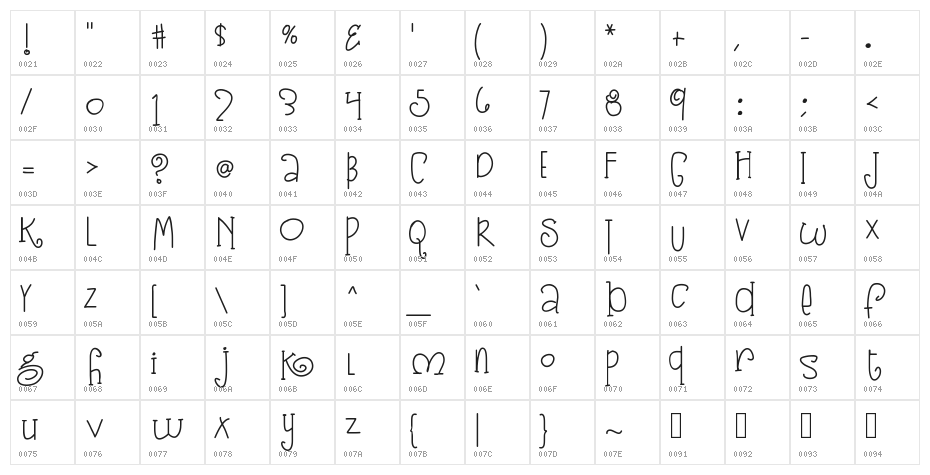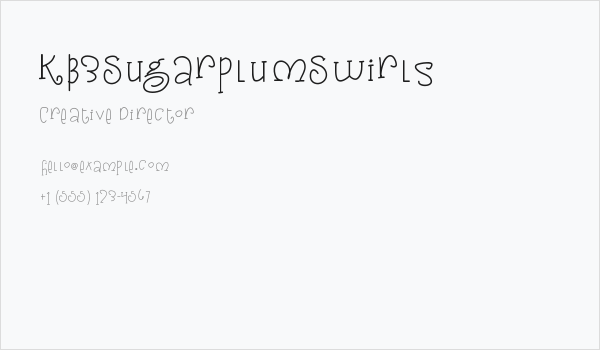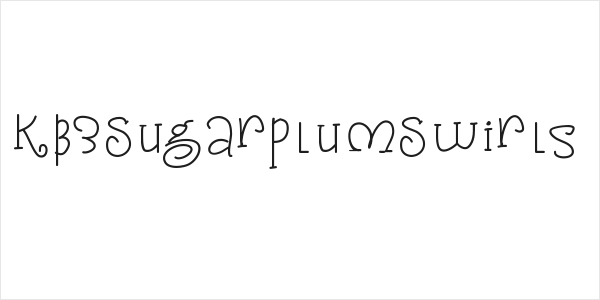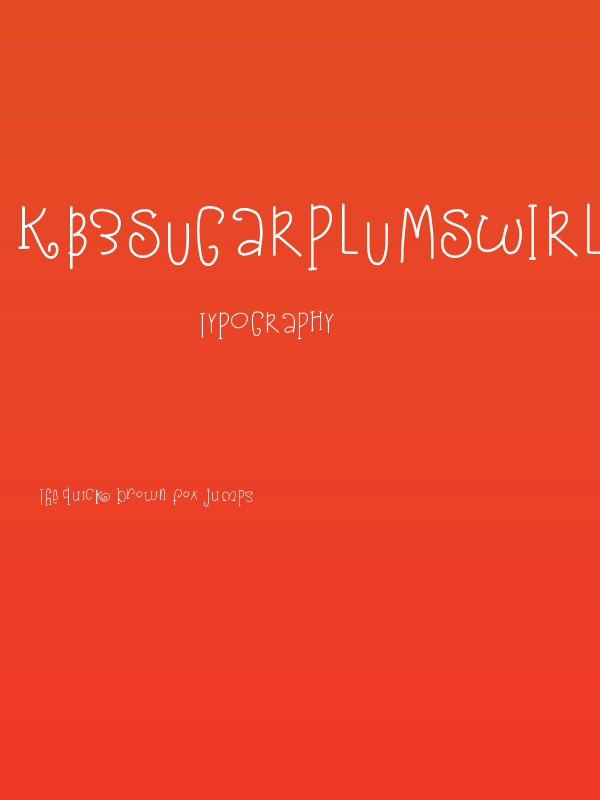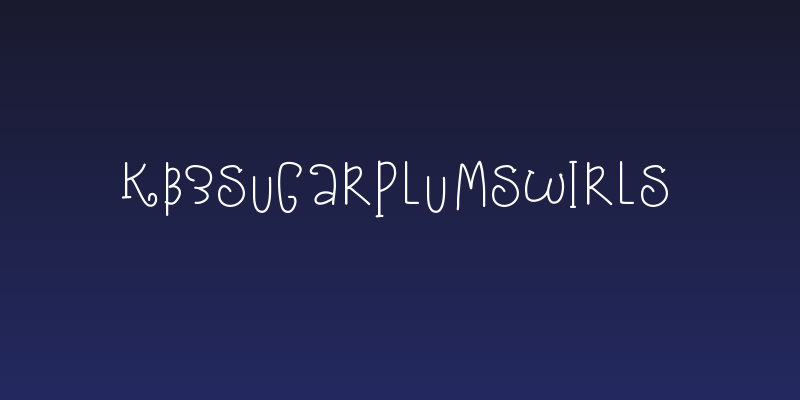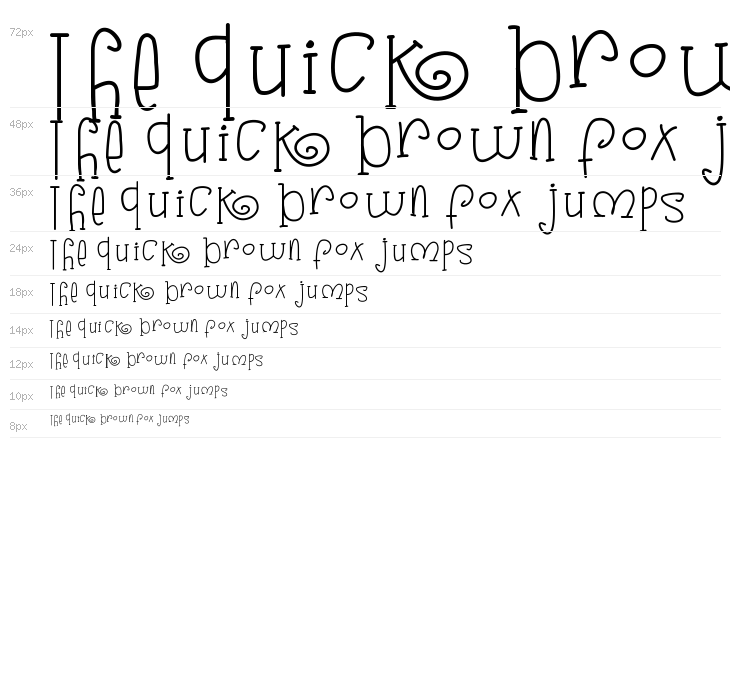
KB3SugarplumSwirls Font
KB3SugarplumSwirls Description
This whimsical and playful font features a unique blend of swirls and curls, giving it a lively and energetic appearance. The characters are designed with a mix of straight and curved lines, creating a sense of movement and fun. Each letter has its own distinct personality, with some incorporating loops and others featuring elongated strokes. The numbers and special characters maintain the same playful style, ensuring consistency throughout. This font is perfect for projects that require a touch of creativity and joy, such as children's books, party invitations, or playful branding.
| Proposed Projects | Ideal for children's books, party invitations, playful branding, and creative designs. |